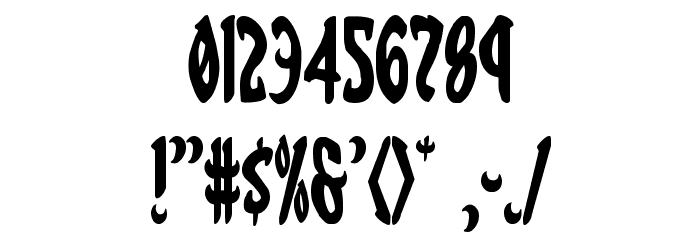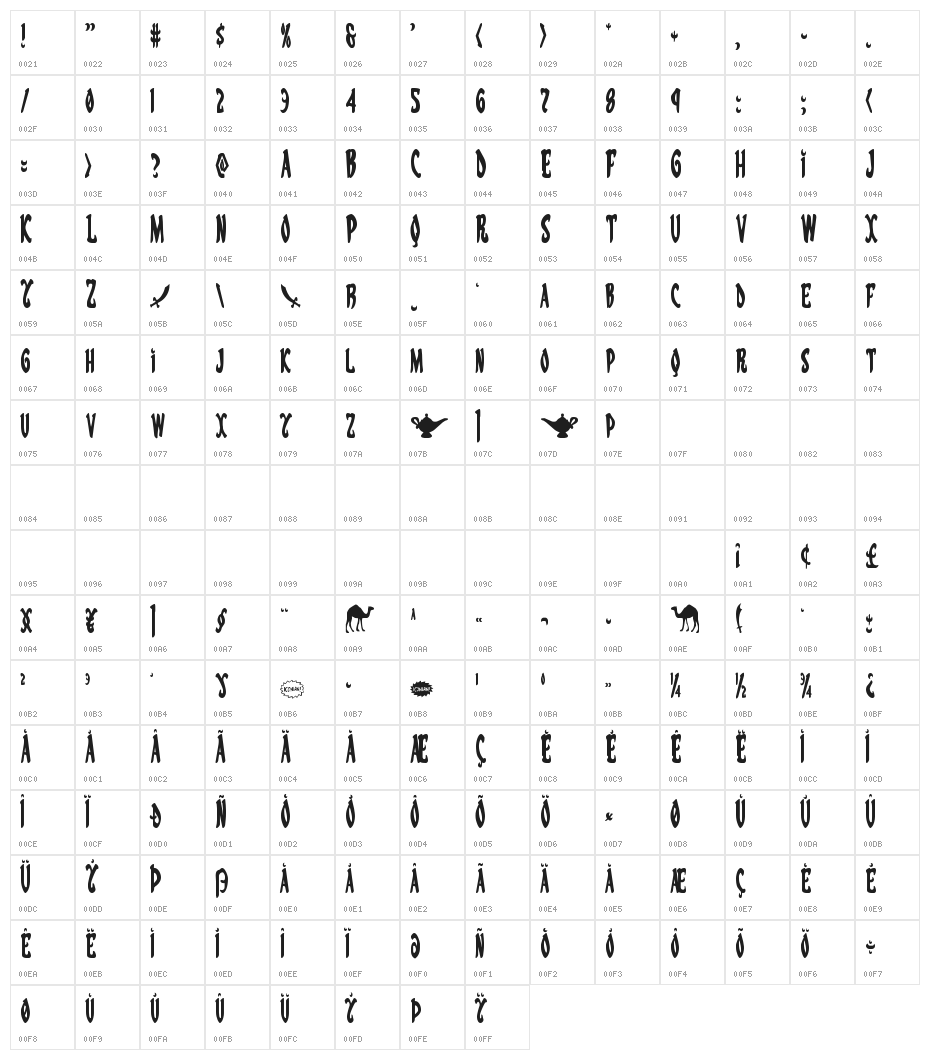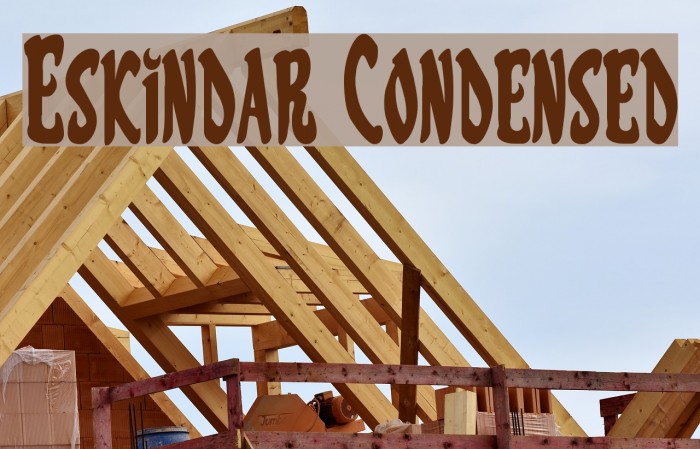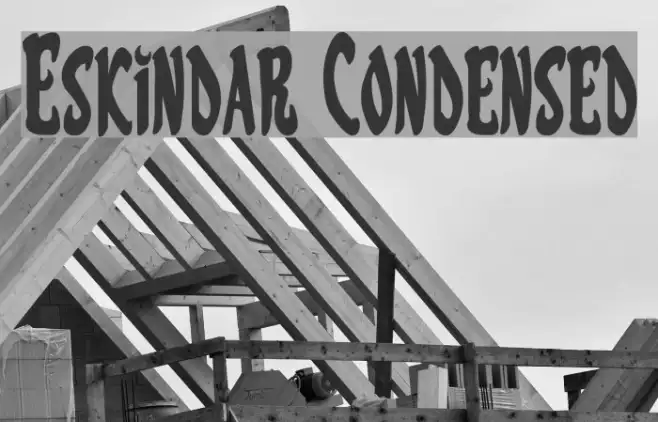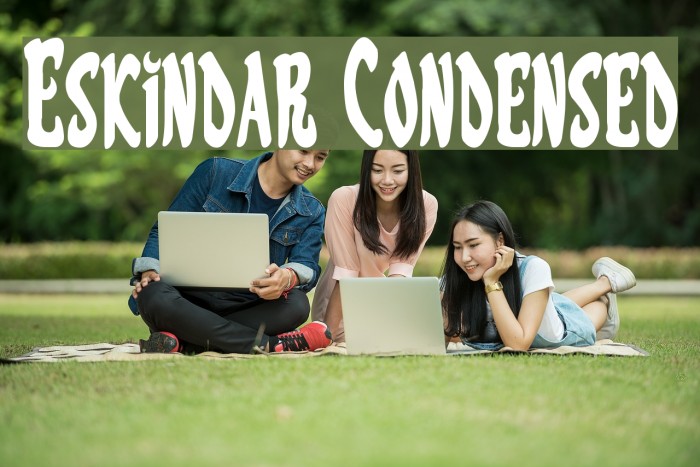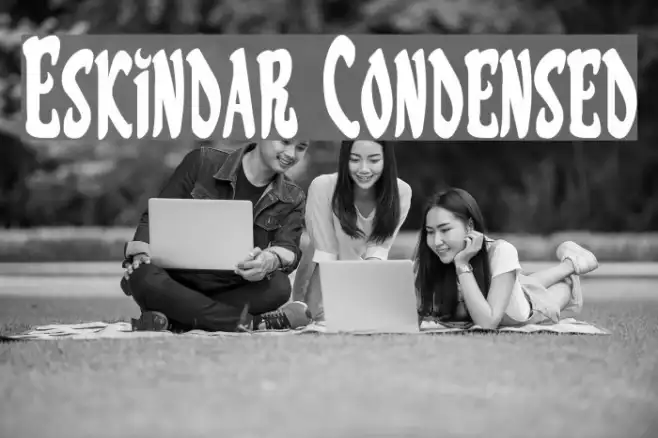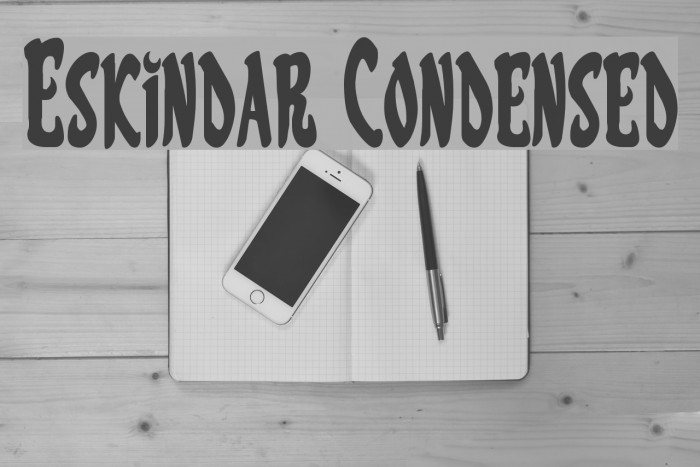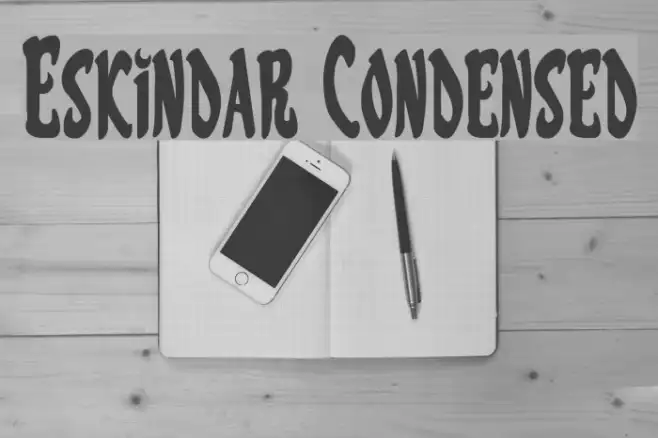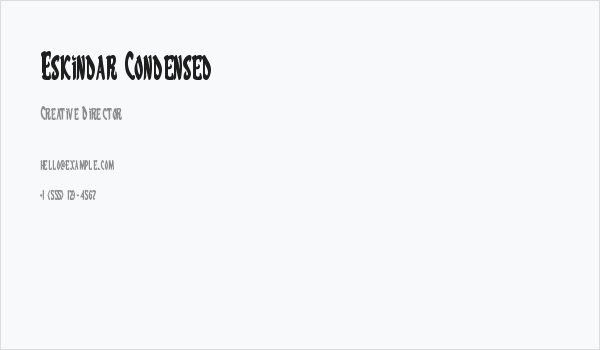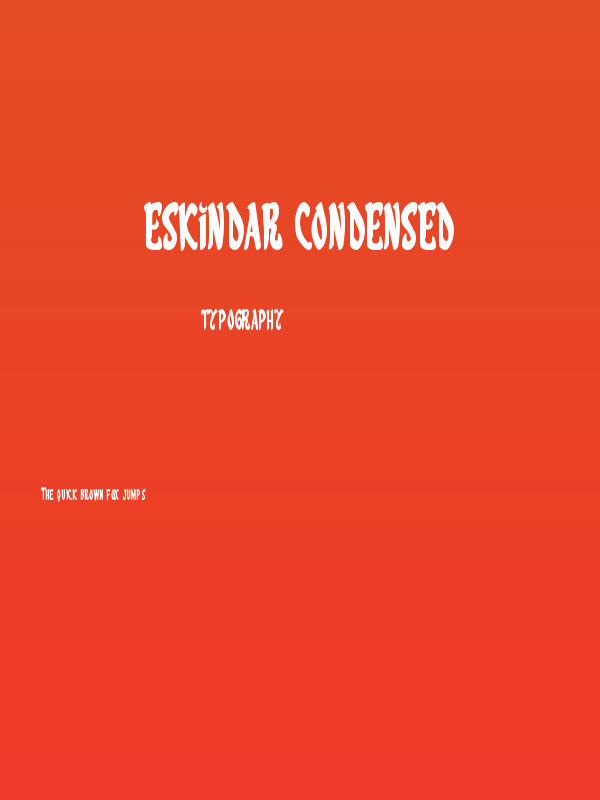
Eskindar Condensed Font
Eskindar Condensed Description
This font features a bold and condensed style with a distinctive, playful character. The letters are thick and have a slightly whimsical, almost cartoonish appearance, making them stand out prominently. The uppercase and lowercase letters maintain a consistent weight, contributing to a cohesive look. The numerals are equally bold, ensuring they are easily readable. Special characters are designed with the same playful flair, adding to the font's unique personality. The overall appearance is both eye-catching and fun, suitable for creative and informal projects.
| Use Case | Headlines, Posters, Creative Designs |
| Proposed Projects | Ideal for posters, children's books, playful branding, and creative design projects. |